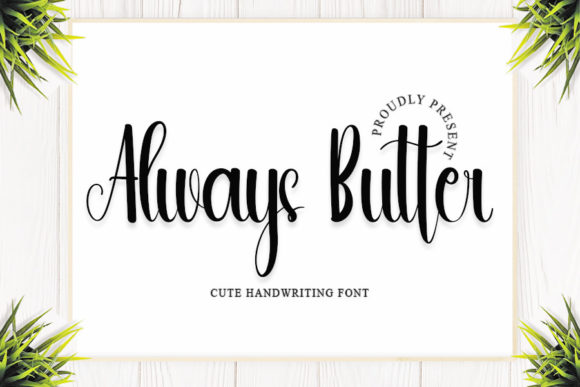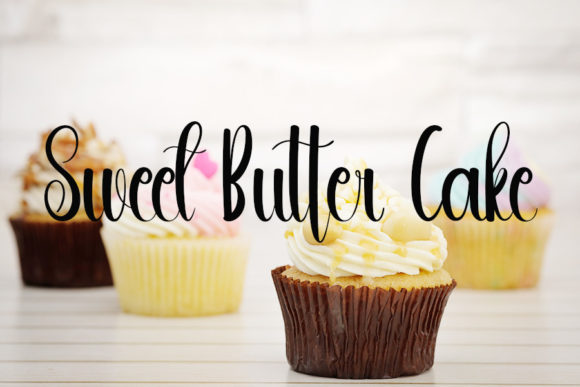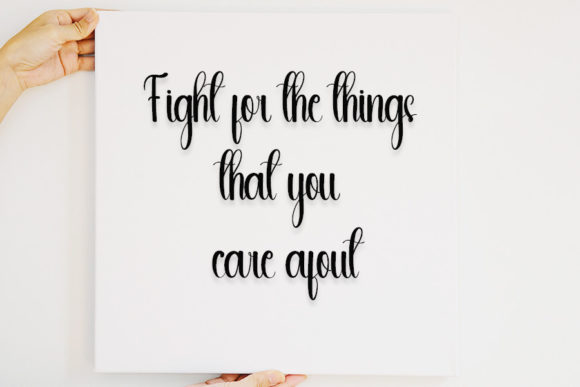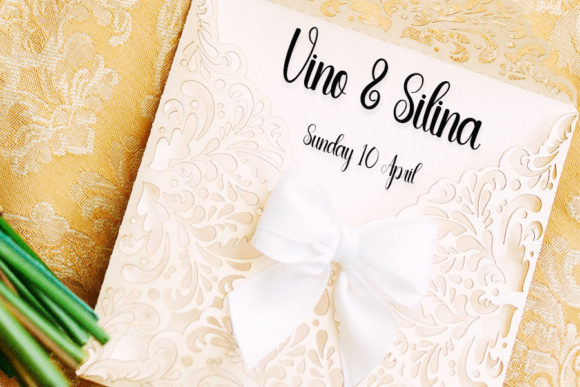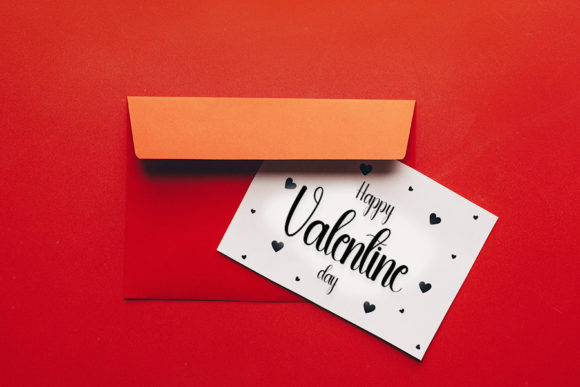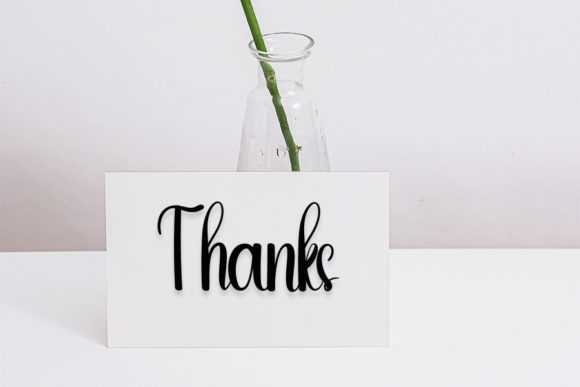
Always Butter Font
About Always Butter Font
Always Butter is a friendly handwritten font, carefully designed to become a true favorite. It maintains its classy calligraphic influences while feeling contemporary and fresh.